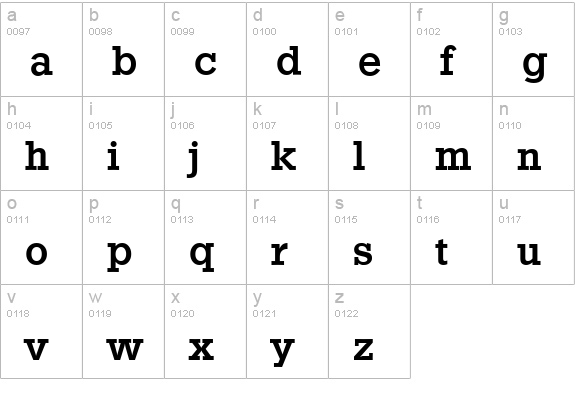
StaffordSerial-Medium-Regular is a balanced, medium-weight variant in the StaffordSerial typeface family \xE2\x80\x94 well suited to sub-headlines, navigation, and balanced editorial work.
StaffordSerial-Medium-Regular is a versatile and modern font that strikes the perfect balance between professionalism and creativity. With its clean lines and balanced proportions, this font is ideal for a wide range of design projects, from branding to editorial design. The medium weight of the font gives it a strong presence without being overpowering, making it a great choice for headlines, body text, and everything in between. What sets StaffordSerial-Medium-Regular apart is not only its aesthetic appeal but also its accessibility. This font is available for free download at FontsMarket.com, making it easily accessible to designers and creatives looking to enhance their projects with a high-quality typeface. Whether you're designing a website, creating a logo, or working on a print layout, StaffordSerial-Medium-Regular is a reliable and stylish choice that is sure to make your designs stand out.